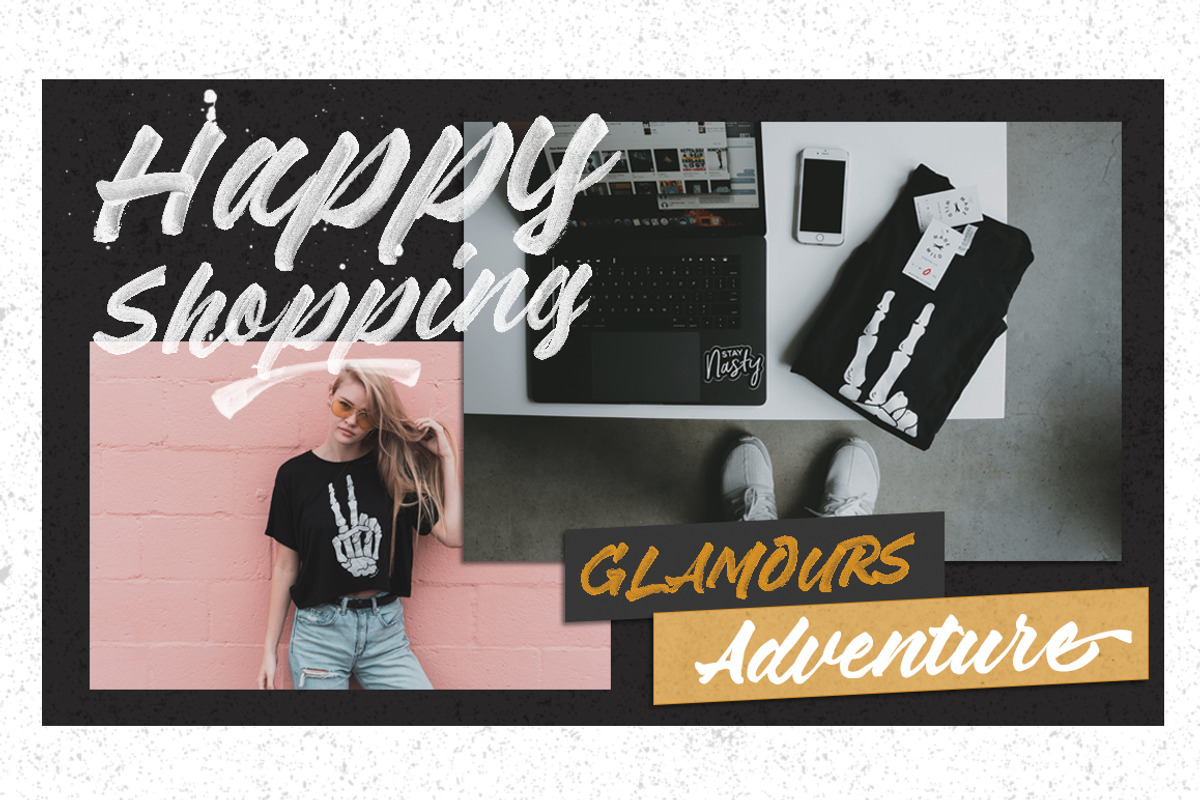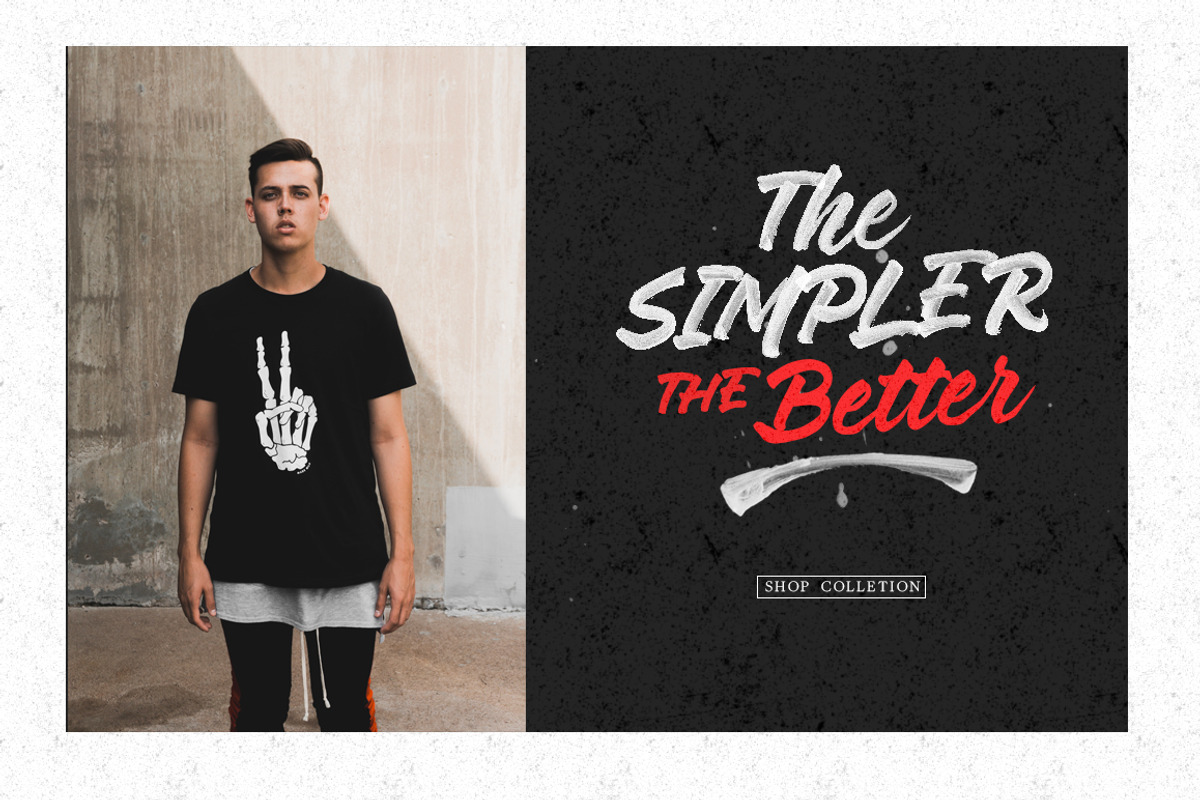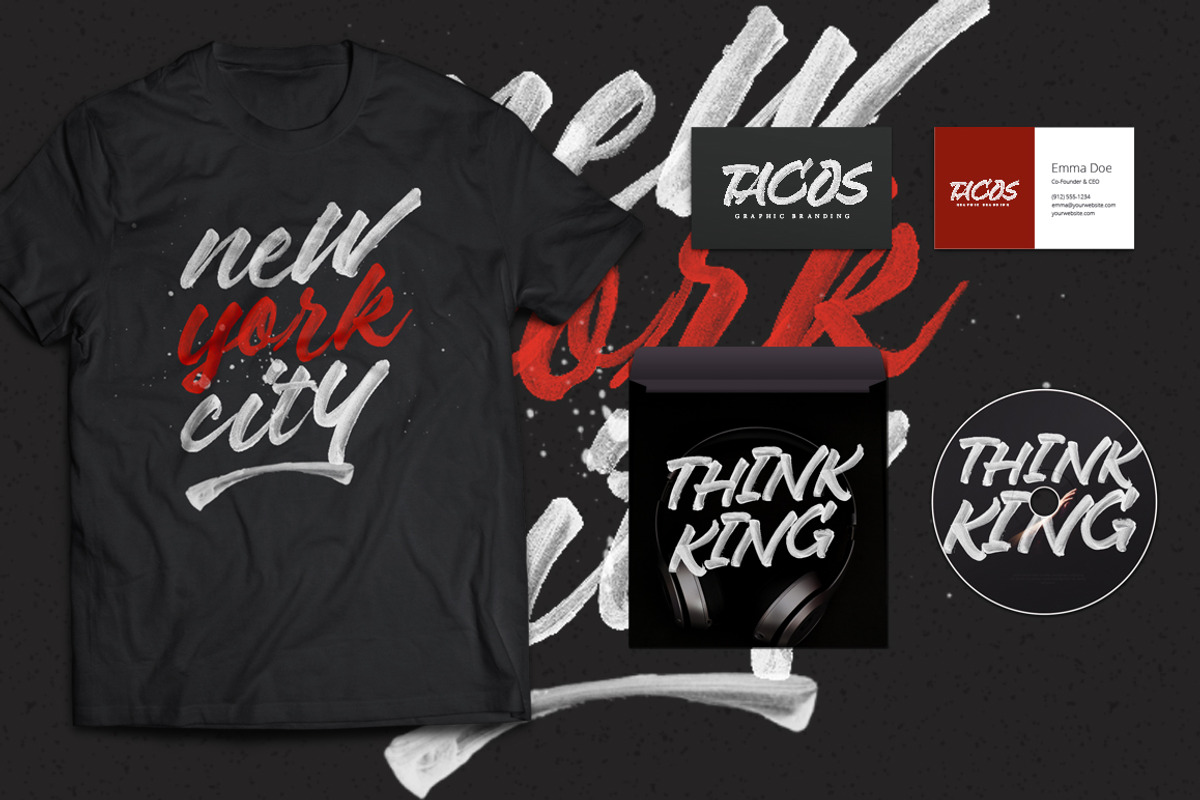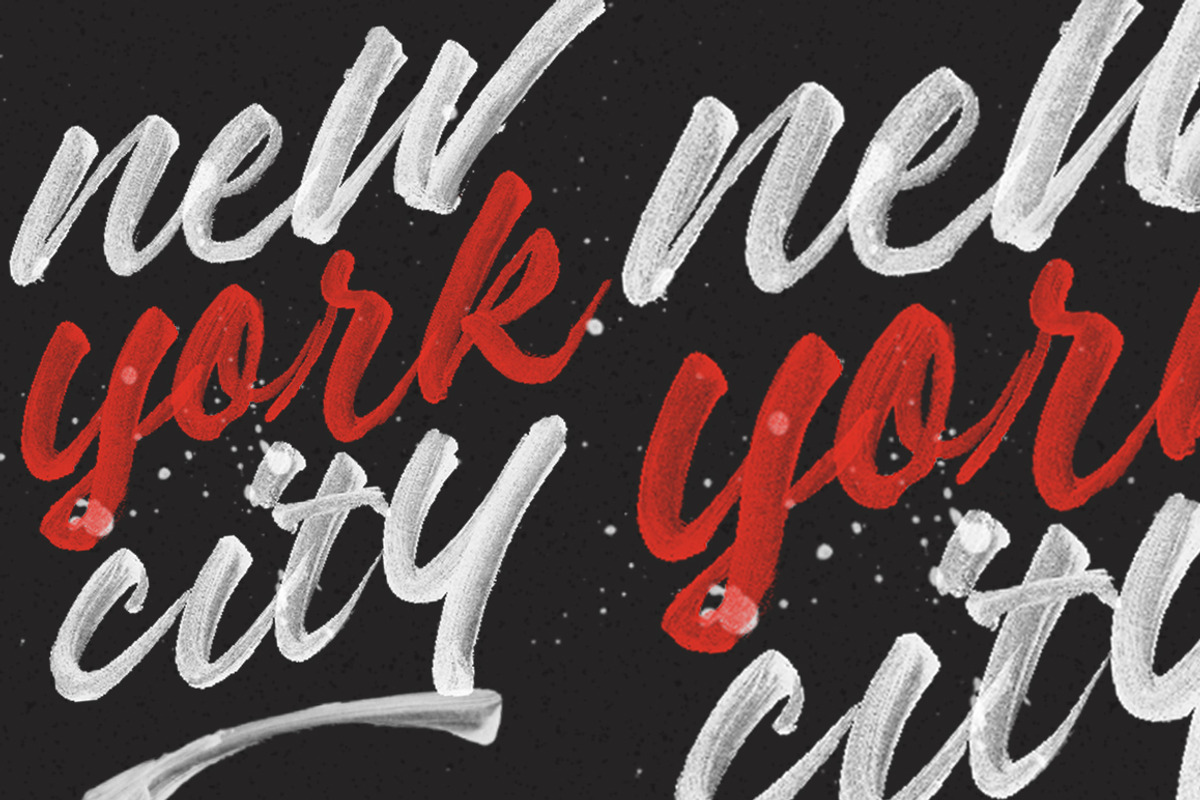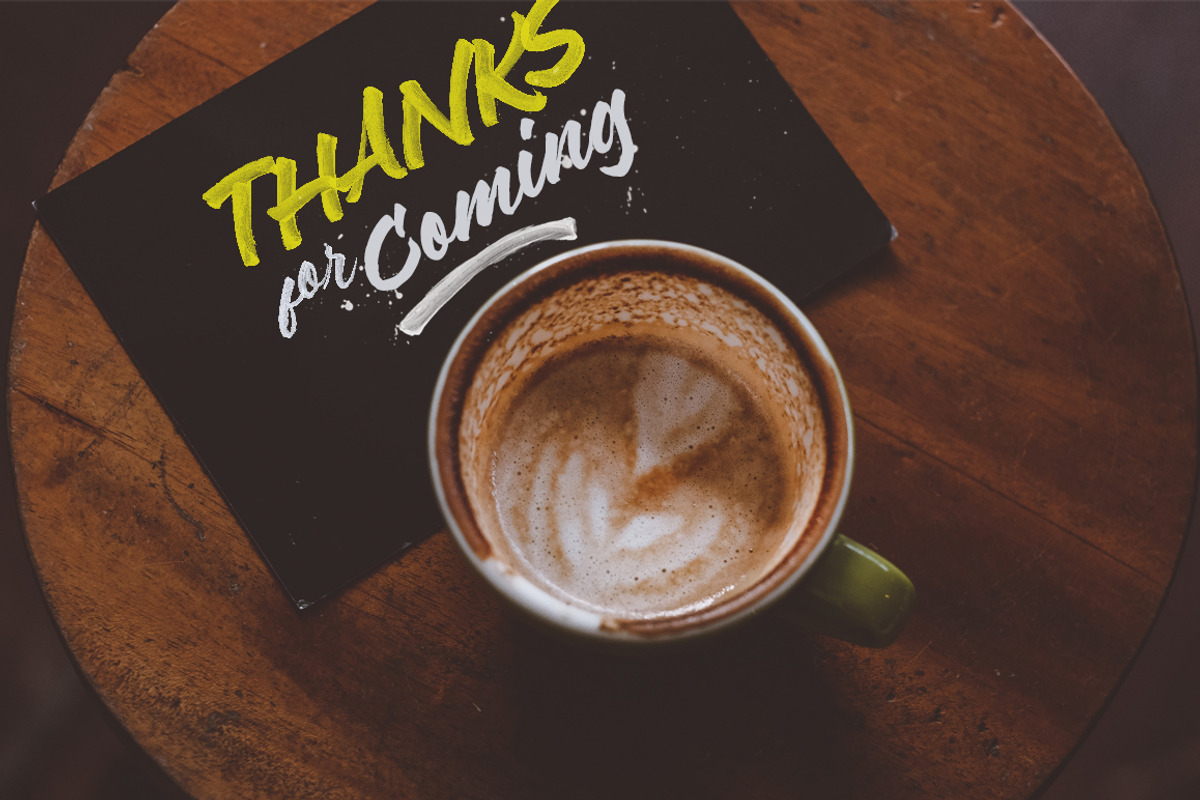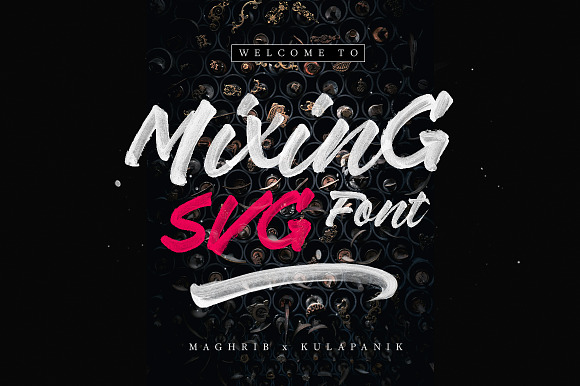
Mixing SVG Font & Regular
Mixing font is my latest handpainted brush font, , by using high resolution brush stroke images with incredible definition, instead of the traditional vector format.font to the next level with a hyper realistic font that truly looks, crude typeface uses brand new technology that makes way for more authentic looking fonts and is sure to grab the attention of customers and designers a like.
Mixing font. Suitable for digital lettering, prints, logo, poster, t-shirt, graffiti, packaging and applicable for some type of graphic design.
Mixing SVG Font & Regular by maghrib fits naturally into Branding, posters, packaging, typography.